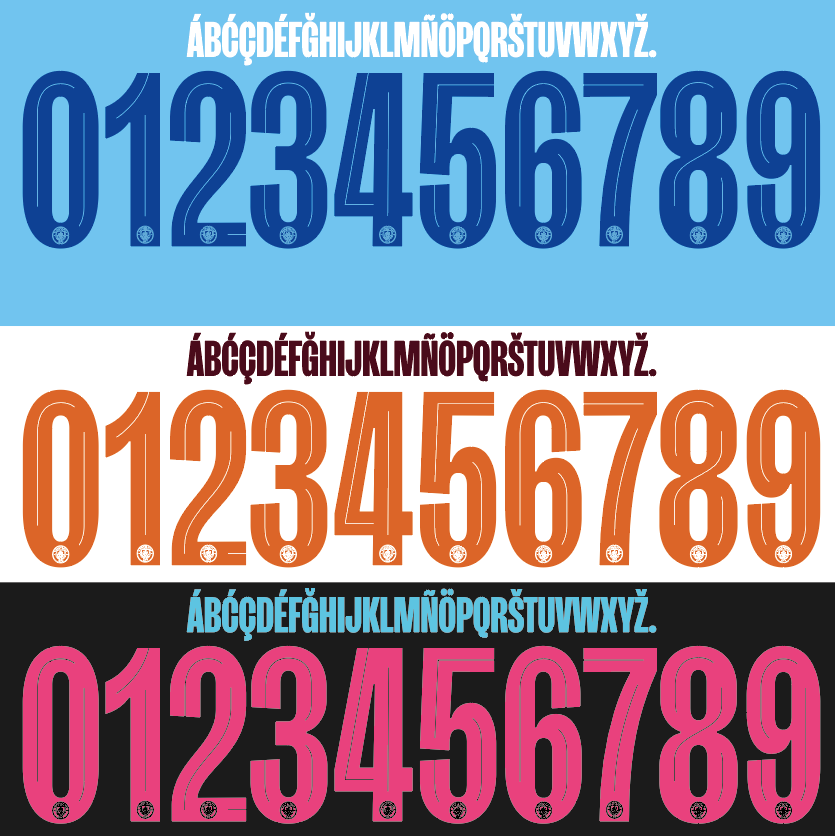
Manchester City-23-24 UCL / Cup Font Nameset AI Vector File
Download this Manchester City 2023-2024 UCL / Cup nameset as an editable .ai vector file. Styled in the 23/24 font, it’s perfect for replicating shirts from their treble-defending season under Pep Guardiola, with Champions League and cup matches adding to their legacy. Great for custom kit designs or digital artwork.